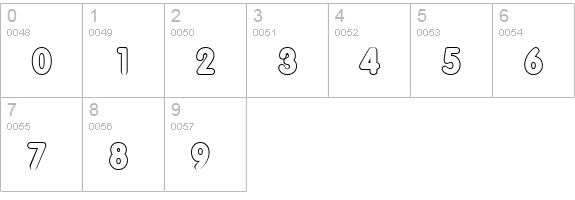
VagabondOutline Font Details
VagabondOutline font is a stunning display typeface that exudes a sense of adventure and wanderlust. Its unique outline design gives it a distinct and captivating appearance, making it perfect for any design project that needs to make a bold statement. With its clean lines and stylish curves, VagabondOutline font is both modern and timeless, making it a versatile choice for a wide range of applications. Whether you're designing a poster, logo, or website, this font will add a touch of sophistication and creativity to your work. What sets VagabondOutline font apart is not just its striking aesthetics, but also the fact that it is free to download. That's right, you can enhance your designs with this exceptional font without spending a dime. Simply head over to FontsMarket.com, where you can easily access and download this font for free. Don't miss out on the opportunity to elevate your designs with VagabondOutline font. Its eye-catching appeal and free availability make it an incredible choice for designers, artists, and creatives of all kinds. Download it today and let your imagination run wild with this remarkable typeface.